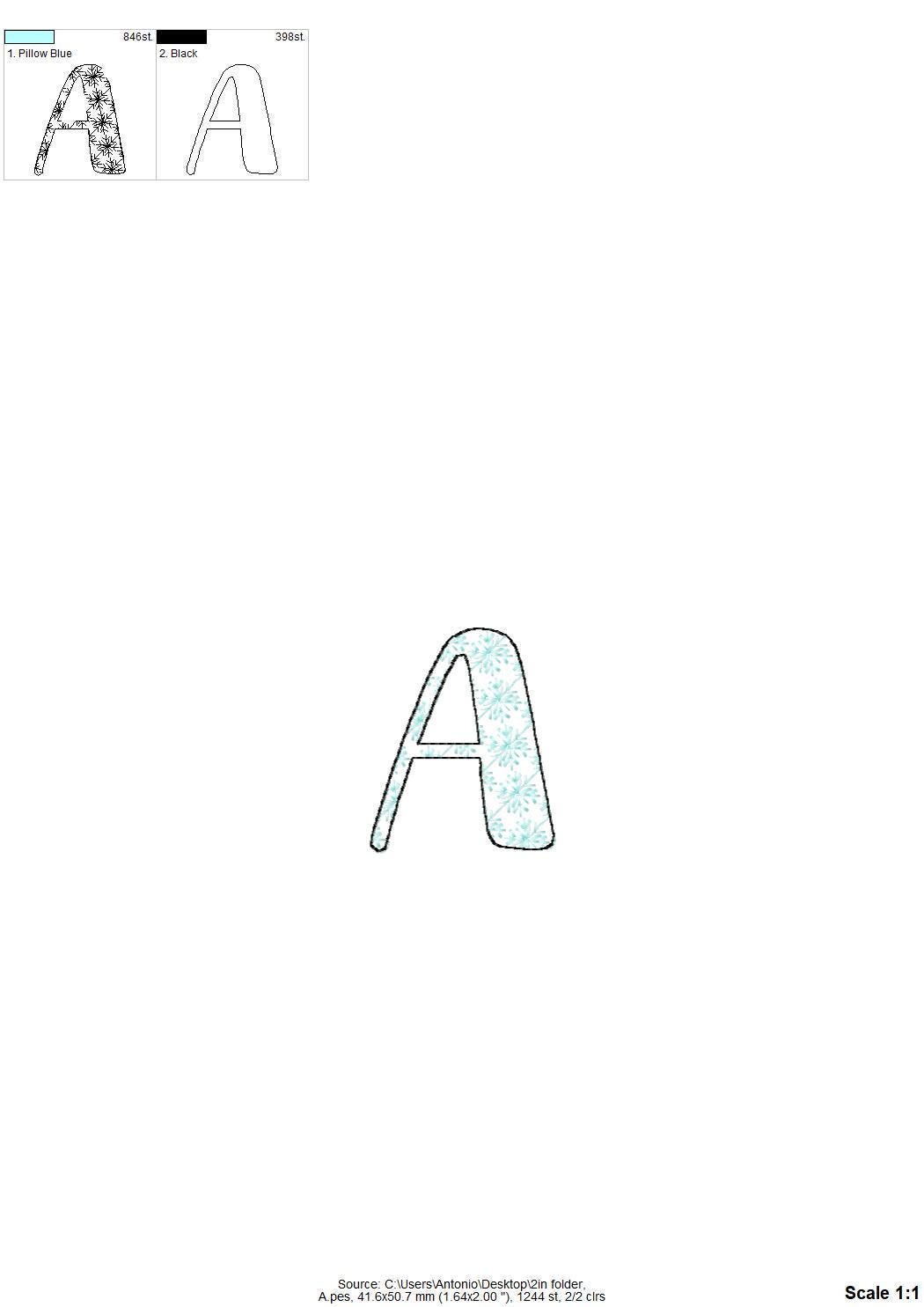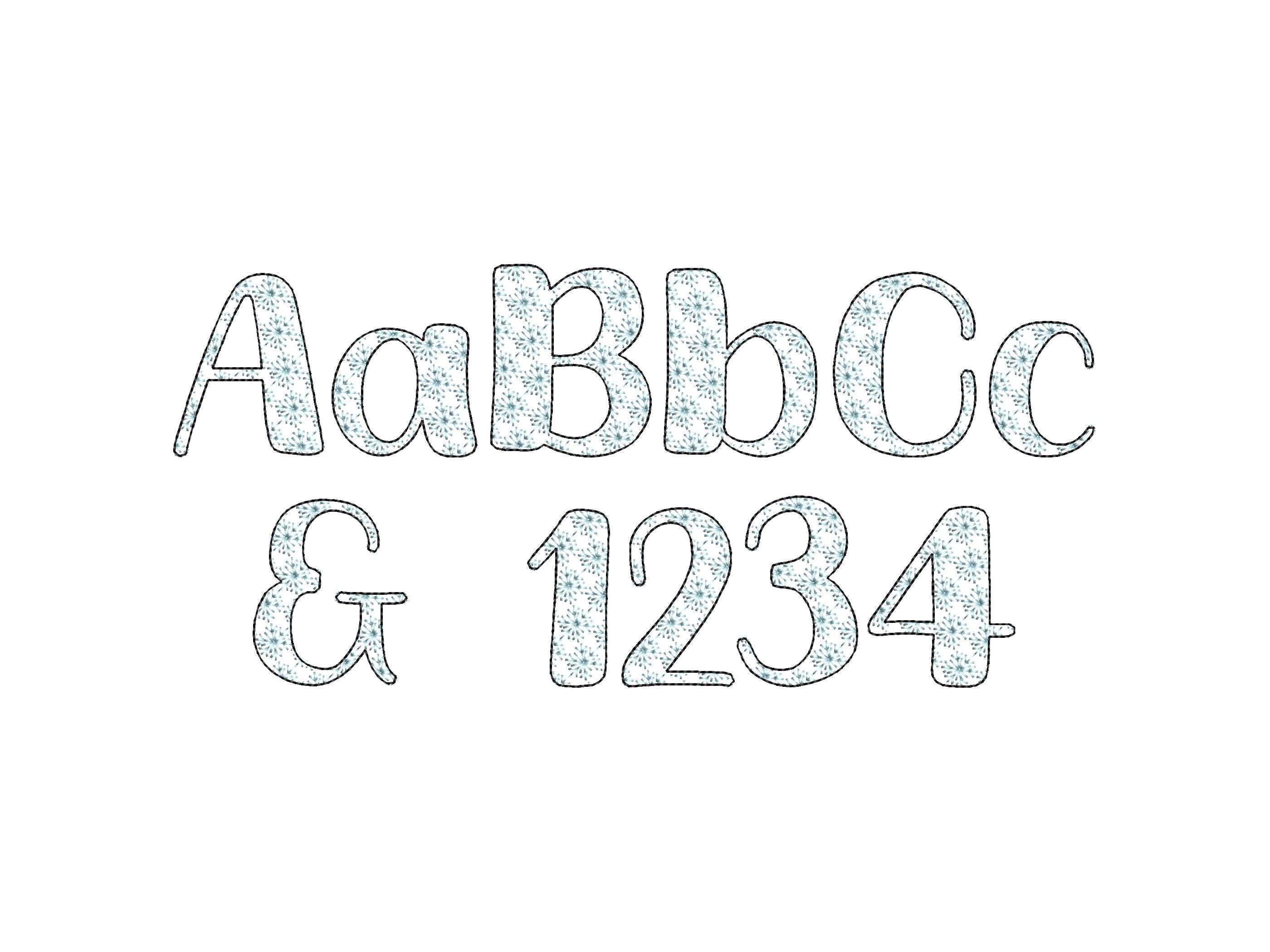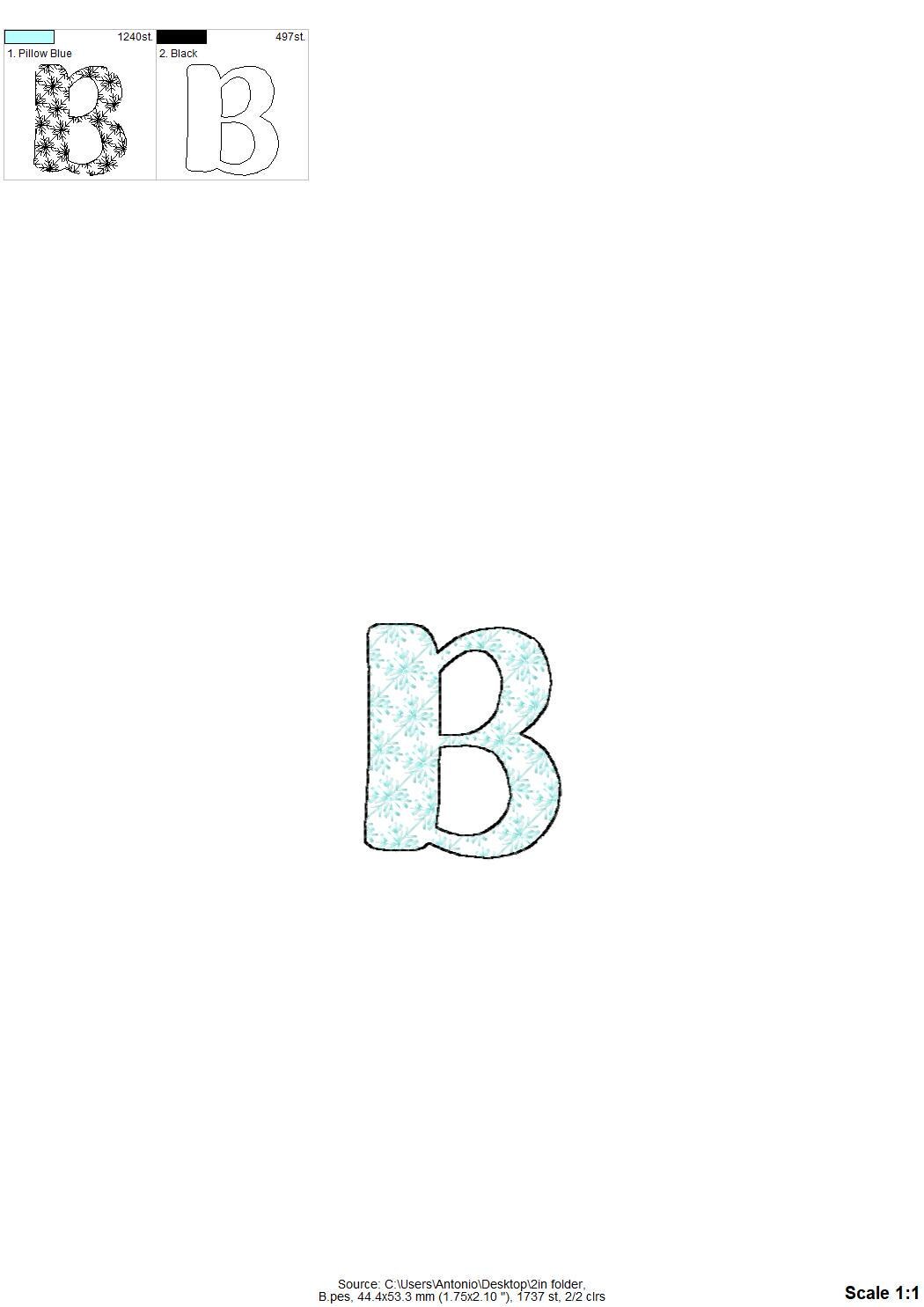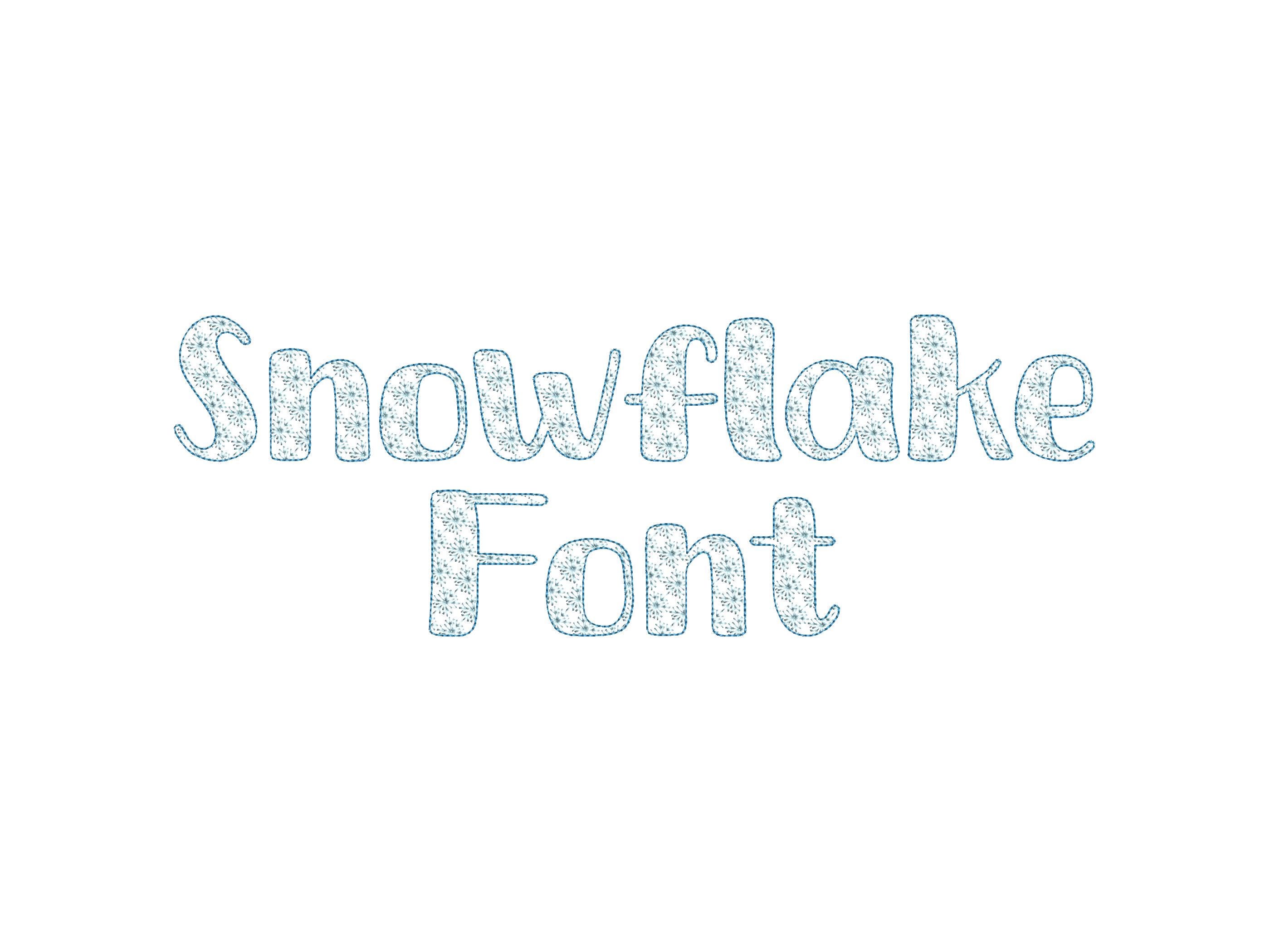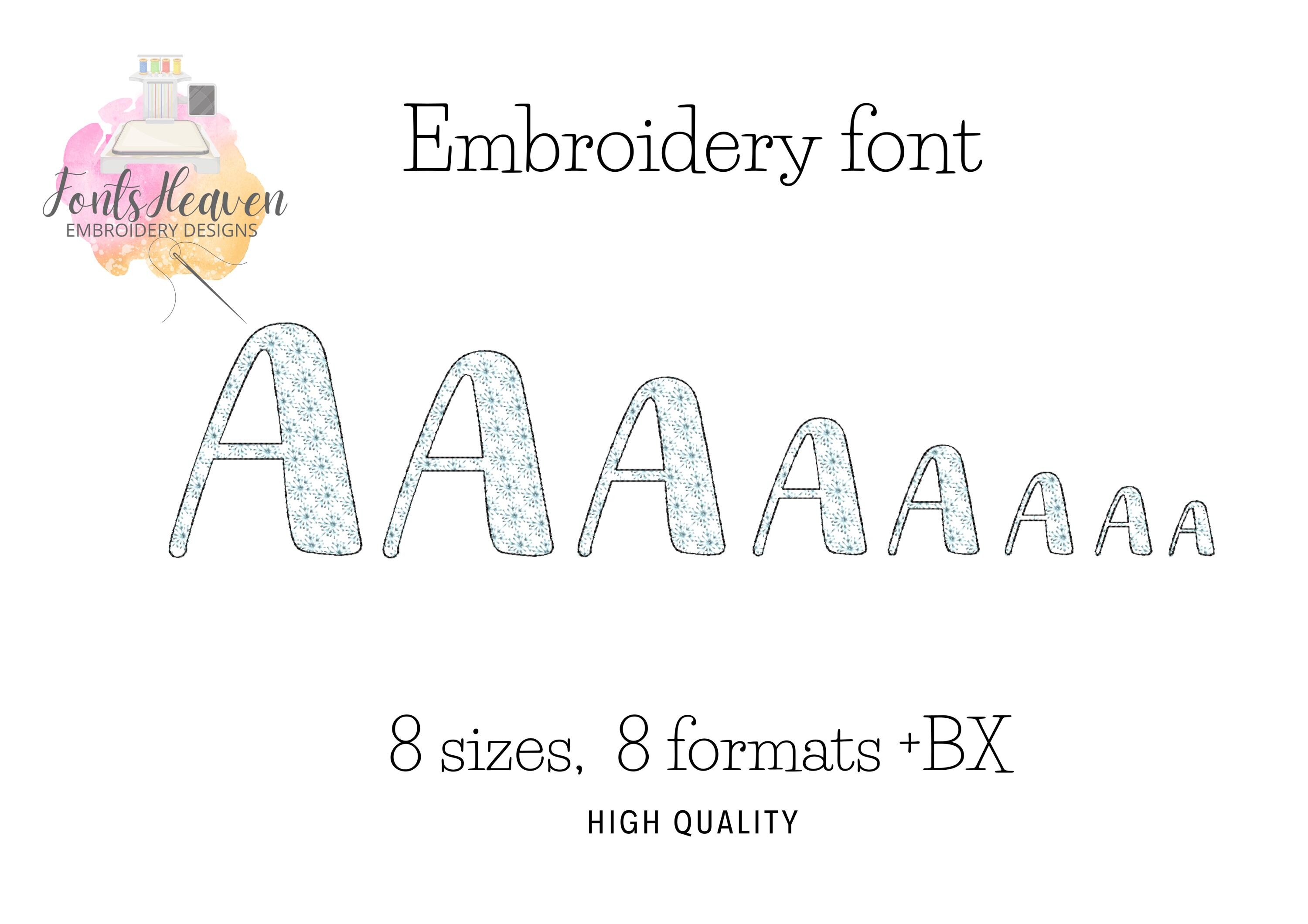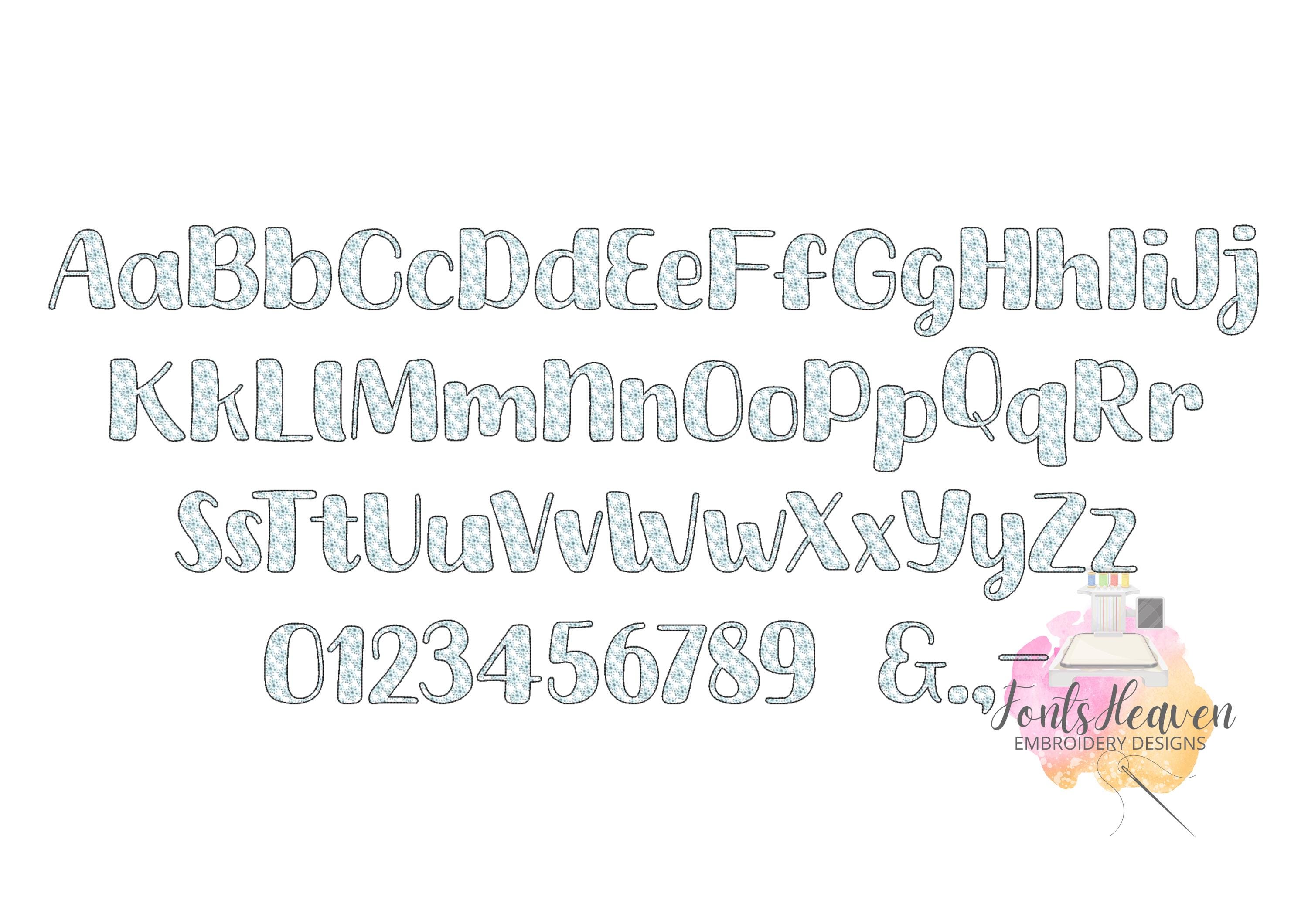
Snowflake Font Christmas Holiday Snow alphabet Monogram letters machine embroidery designs mini small sizes 0.8 thru 3.5in kids baby Font BX
This is a transparent font, it looks like lace, and the background fabric looks through. Awesome effect!